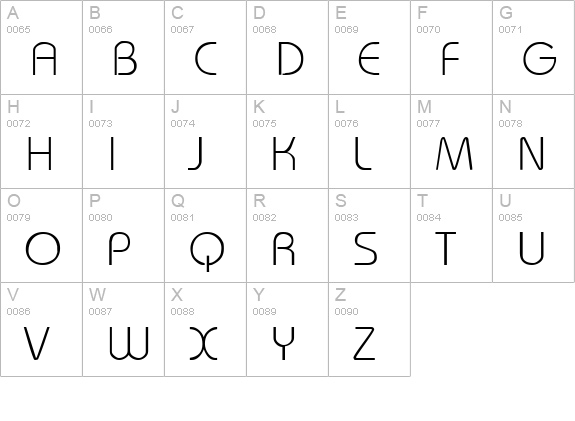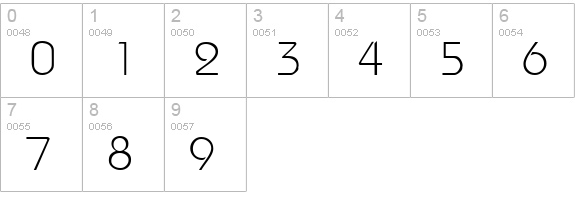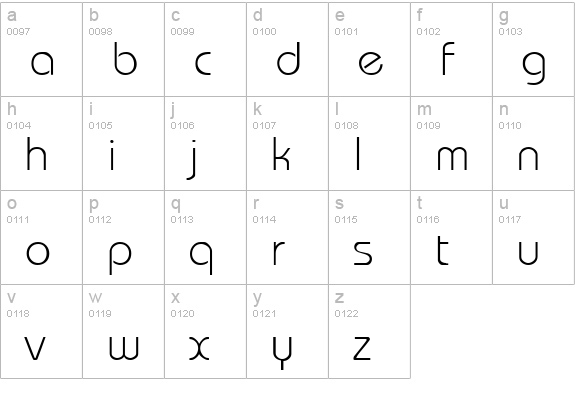
WashingtonMetro Font Details
WashingtonMetro is a modern and sleek font that embodies the spirit of the bustling metropolis it is named after. With its clean lines and sharp edges, this typeface captures the essence of the Washington D.C. metro system - efficient, organized, and stylish. Designed with versatility in mind, WashingtonMetro is suitable for a wide range of design projects. Whether it's creating eye-catching headlines, designing captivating logos, or crafting professional-looking documents, this font will elevate your work to new heights. What sets WashingtonMetro apart is not just its striking design, but also the fact that it is available for free. That's right, this incredible font can be freely downloaded at FontsMarket.com. We believe that great design should be accessible to all, and by offering WashingtonMetro for free, we hope to inspire creativity and empower designers to create amazing works of art. The versatility of WashingtonMetro is further enhanced by its extensive character set, which includes uppercase and lowercase letters, numbers, punctuation marks, and special symbols. This font is also available in various weights, allowing you to customize the typography to suit your specific needs. Whether you're a professional graphic designer, a student working on a project, or simply someone who appreciates beautiful typography, WashingtonMetro is the perfect font to add to your collection. Its sleek and modern aesthetic combined with its availability as a free download makes it an invaluable resource for any designer. So, what are you waiting for? Head over to FontsMarket.com and download WashingtonMetro today. Unleash your creativity and make a bold statement with this stunning font.